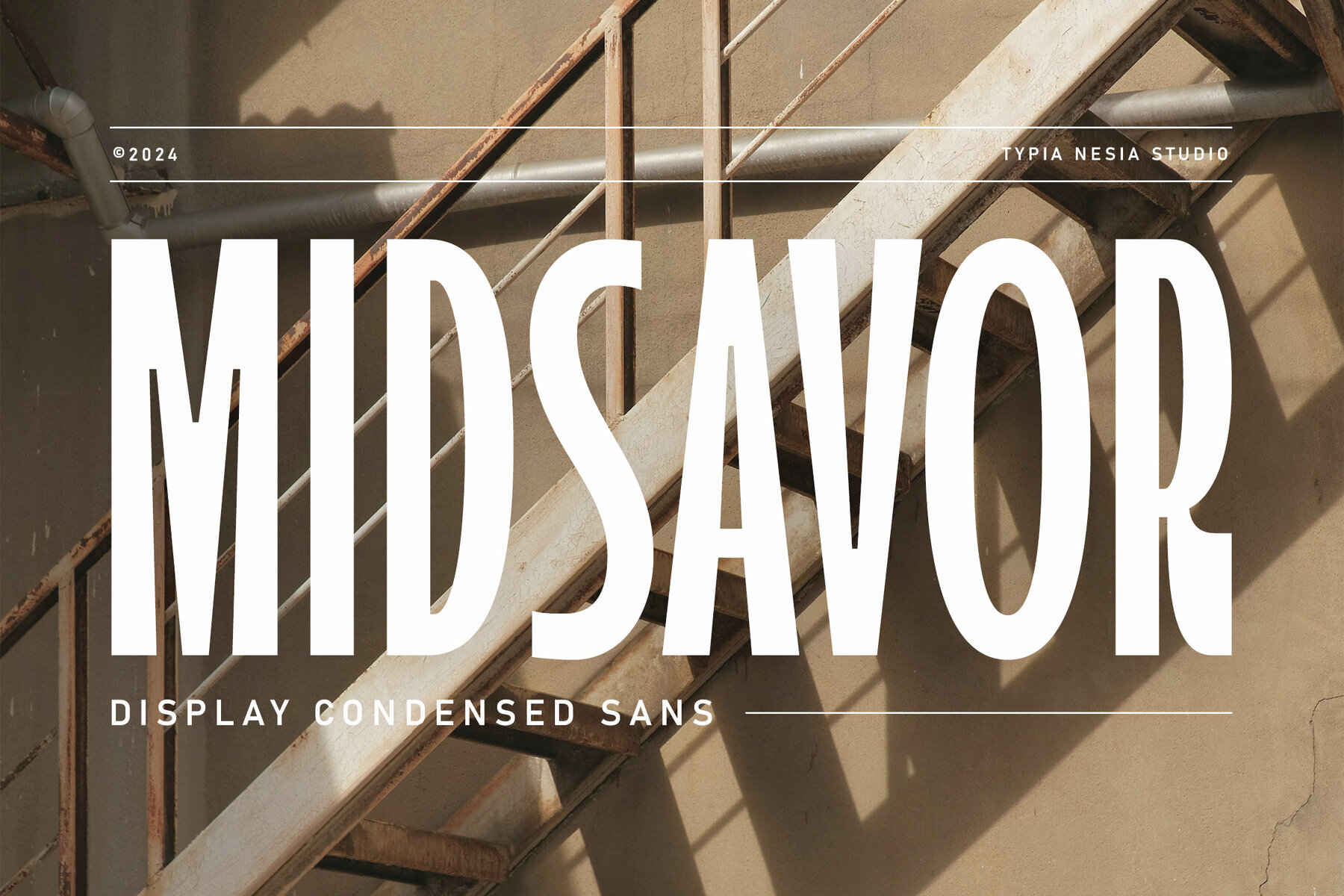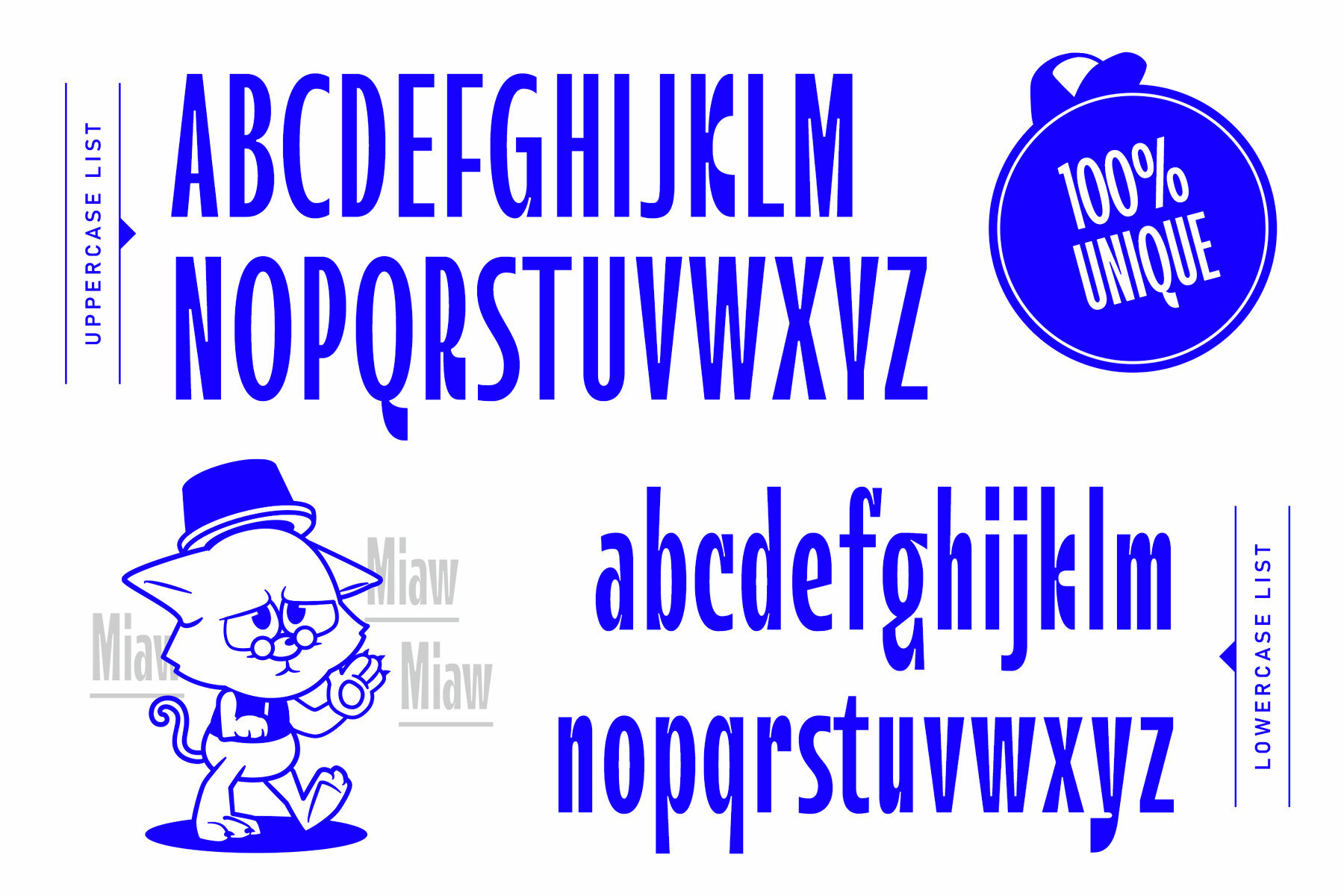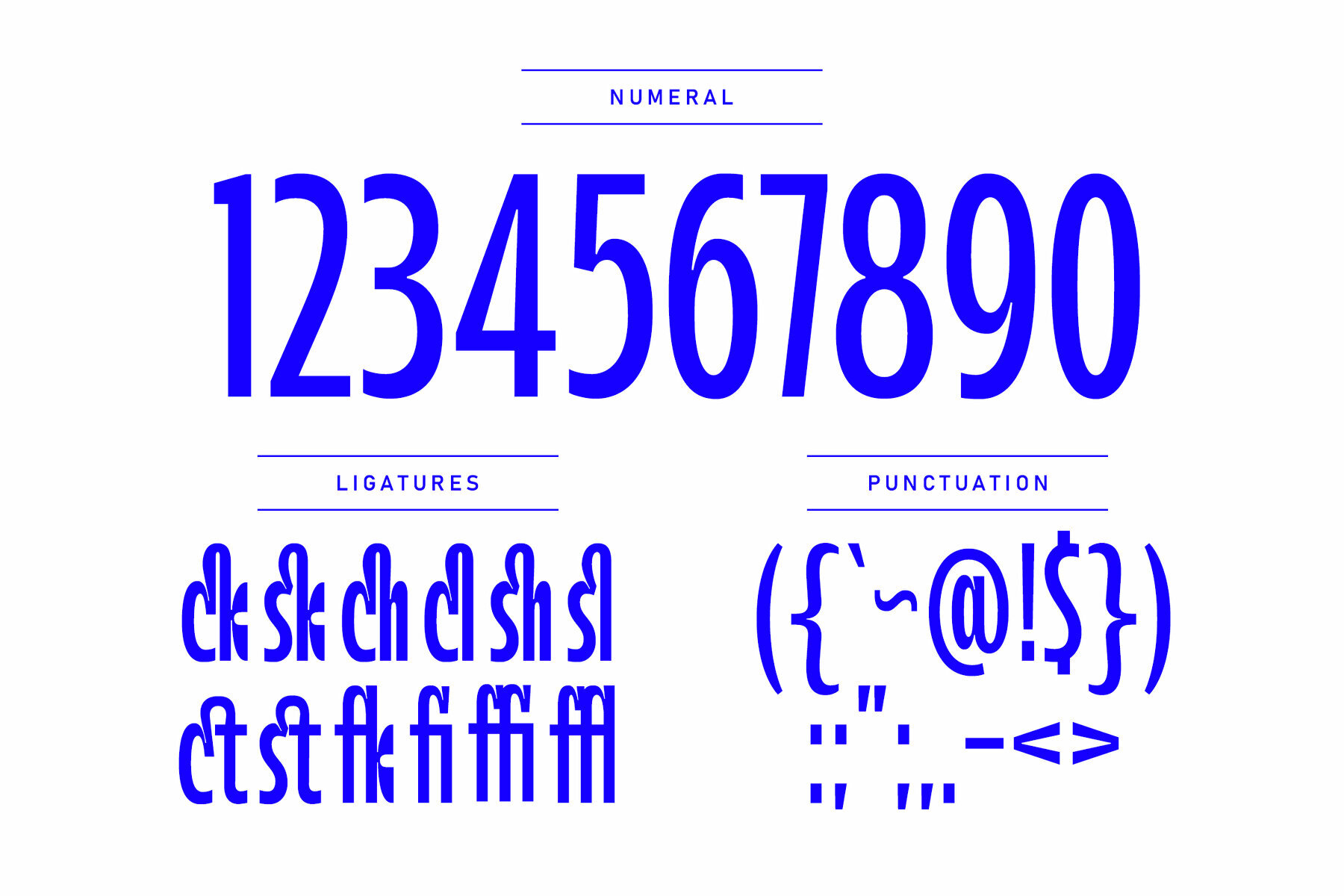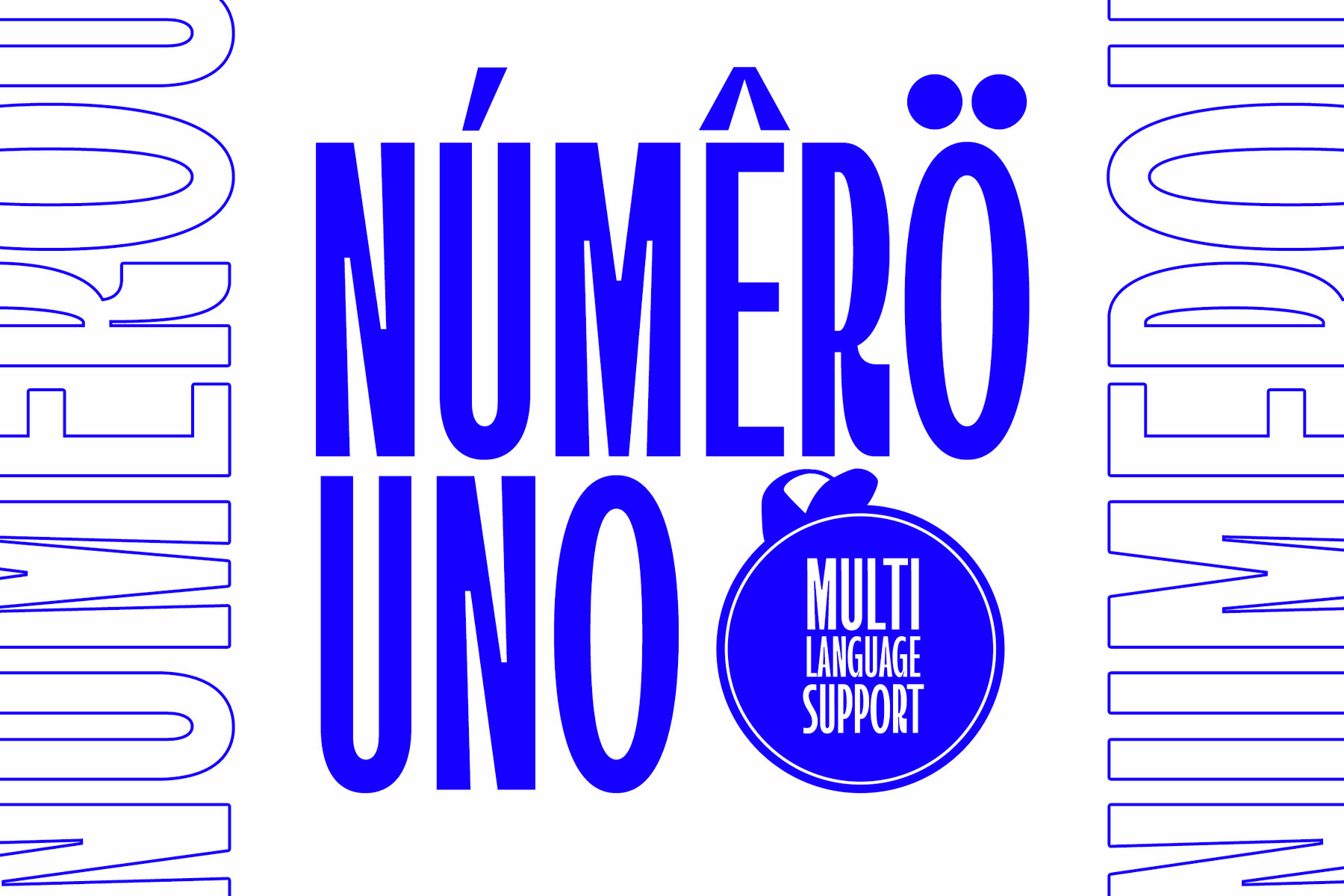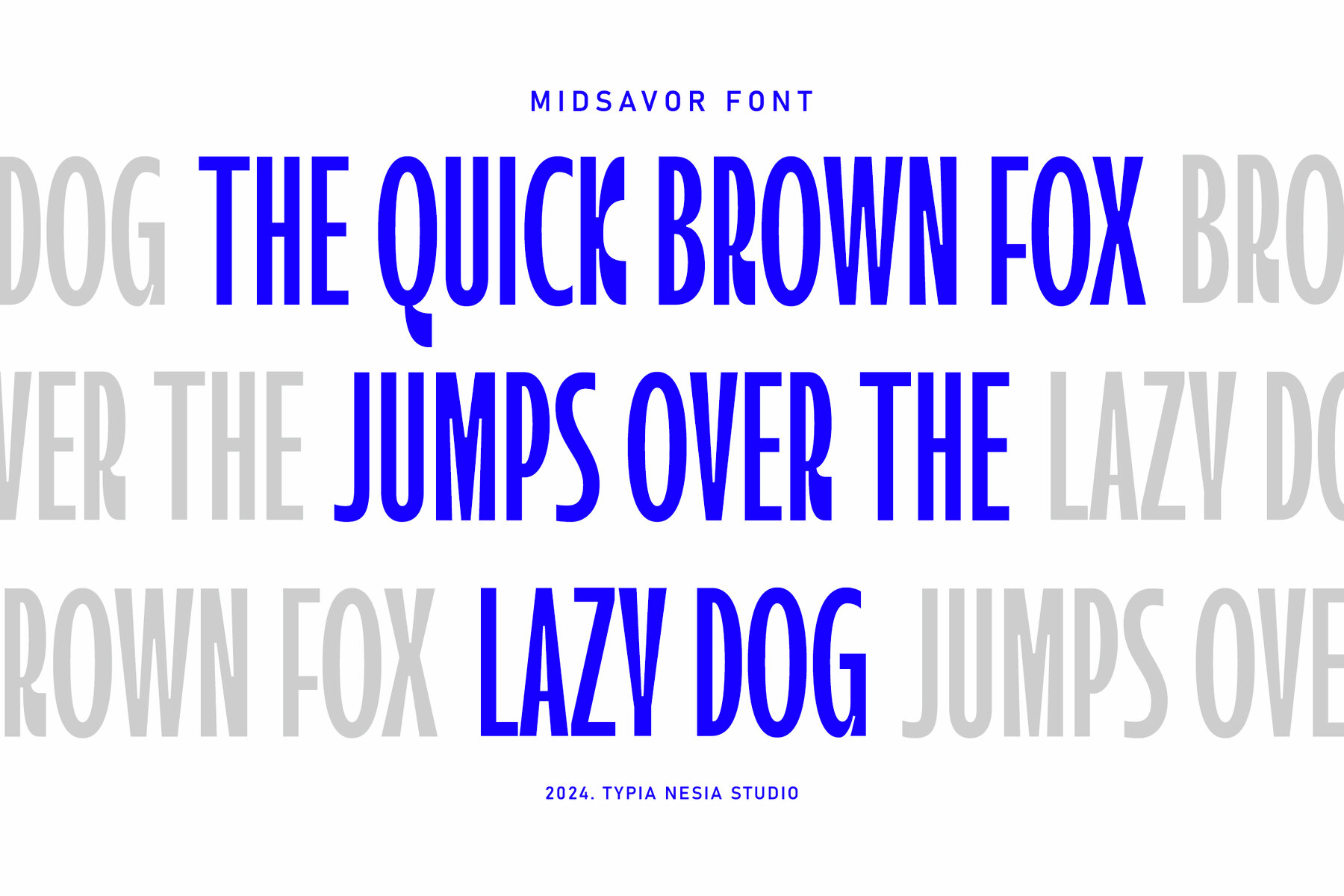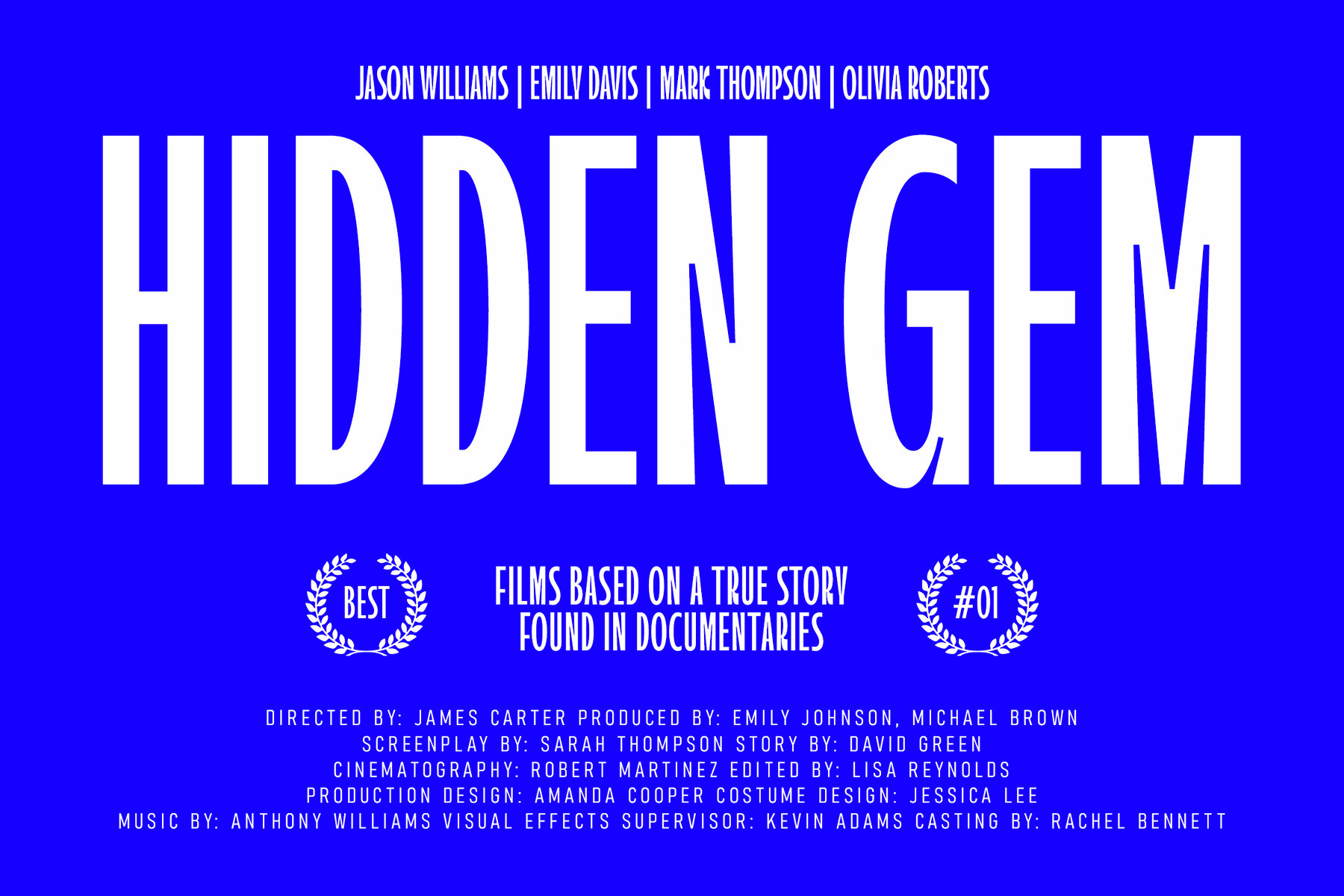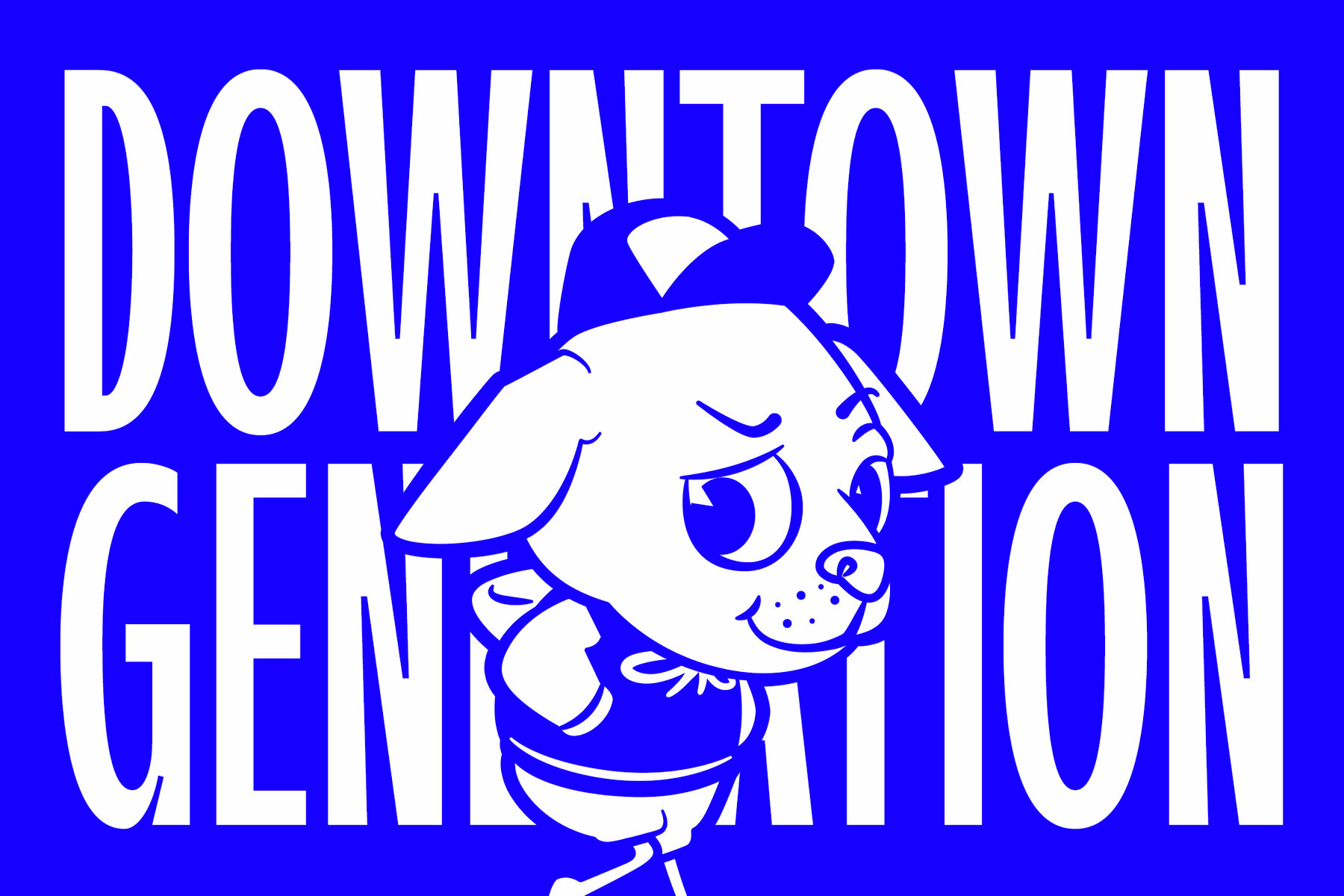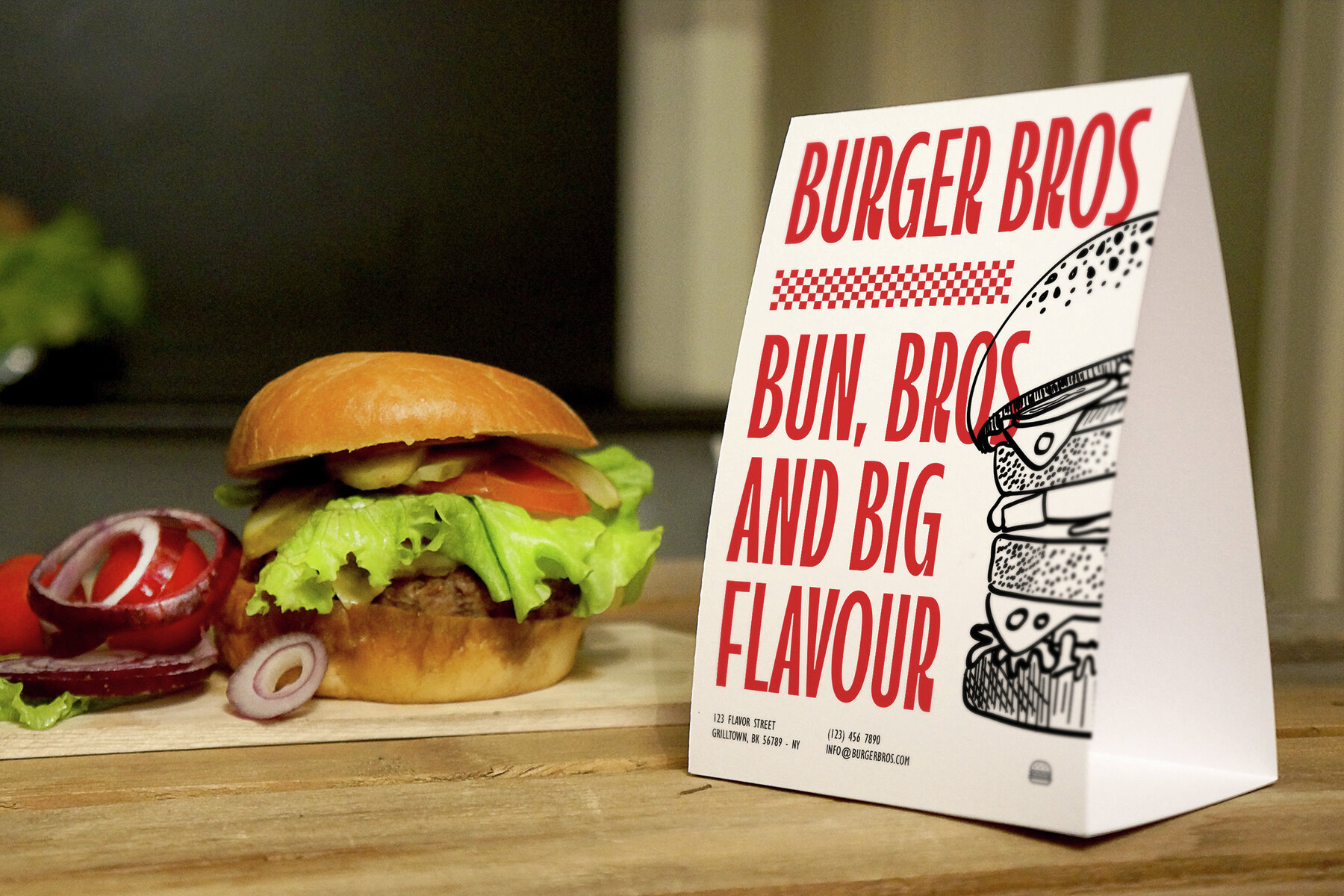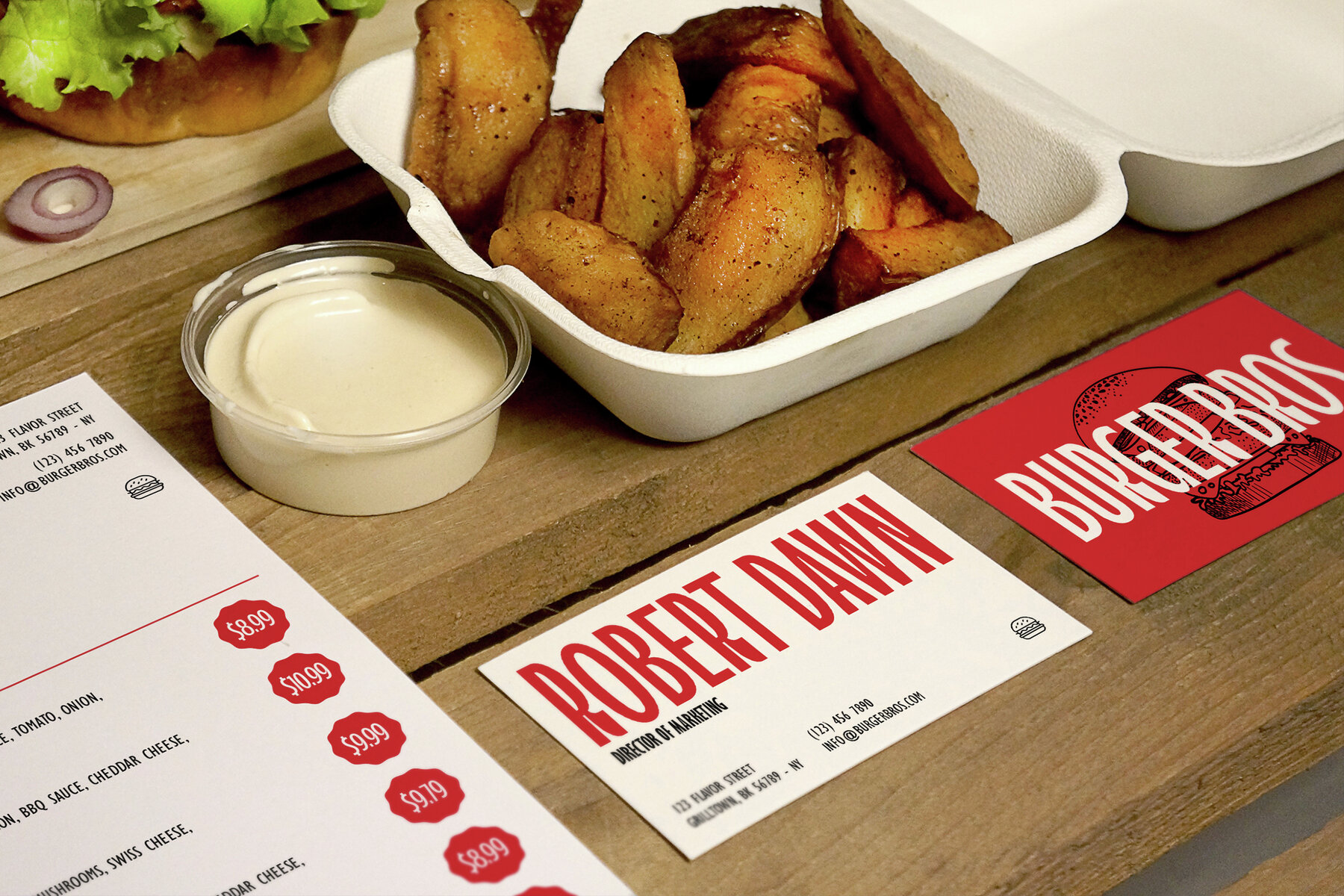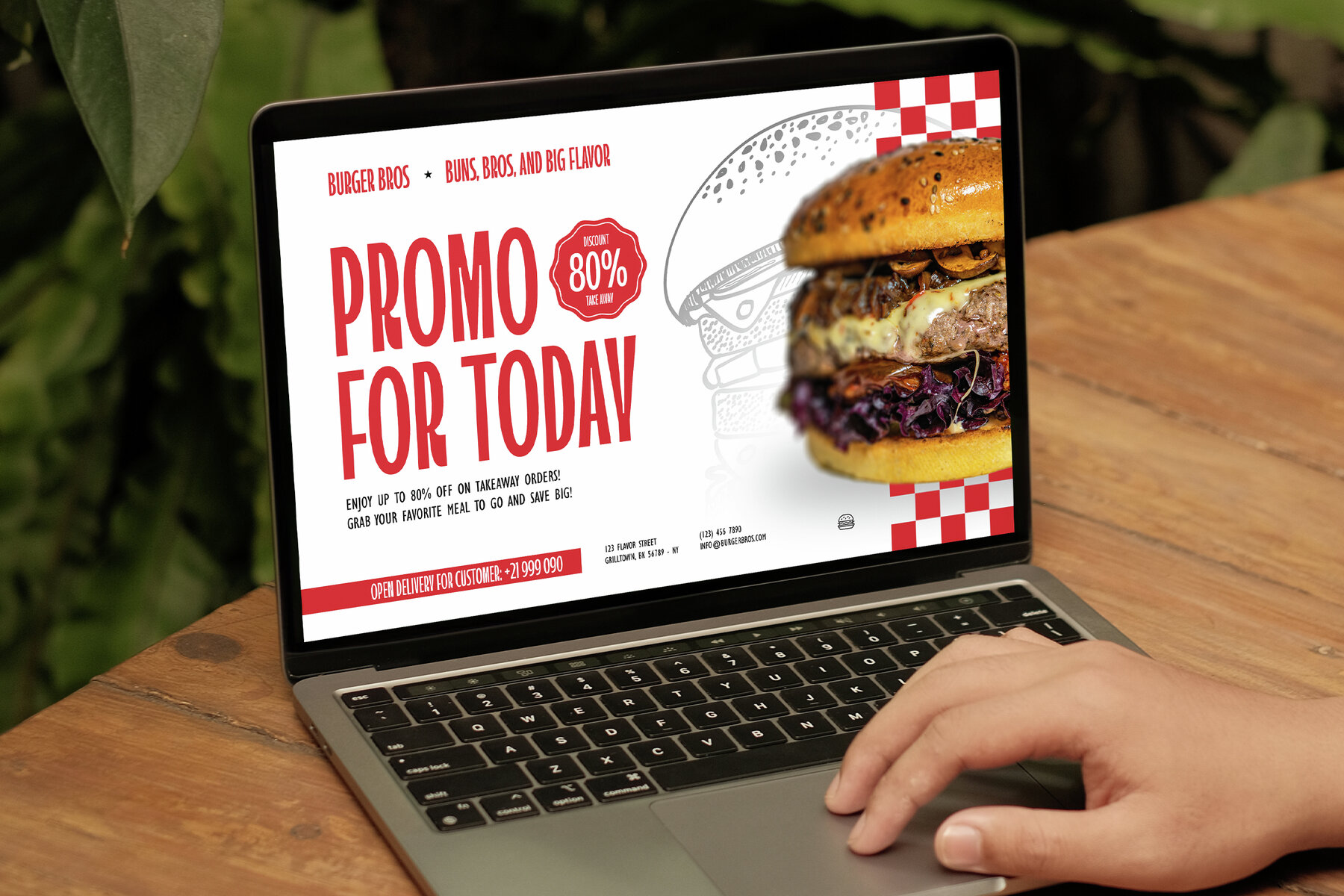
Midsavor Font
Midsavor Regular
Midsavor is a striking display condensed sans-serif font, expertly crafted for modern design needs. Its condensed form ensures a bold and impactful presentation, perfectly suited for projects where space is at a premium. Whether it's for branding, advertisements, posters, magazine covers, or packaging, Midsavor delivers a classic yet contemporary look. This font seamlessly enhances urban fashion visuals, headlines, social media graphics, web designs, and logos, adapting effortlessly to both digital and print media applications.
Equipped with an extensive character set, Midsavor includes uppercase and lowercase letters, punctuation, numerals, and alternate styles. Unique ligatures provide an enhanced cohesive touch, offering a stylish and unified appearance to letter combinations. With multilingual support, Midsavor is an excellent choice for global design projects. Tailored for creative professionals who seek efficient typography without sacrificing style, Midsavor's modern condensed design delivers both functionality and aesthetic appeal. Its dynamic form adds a professional touch, making your designs visually compelling.